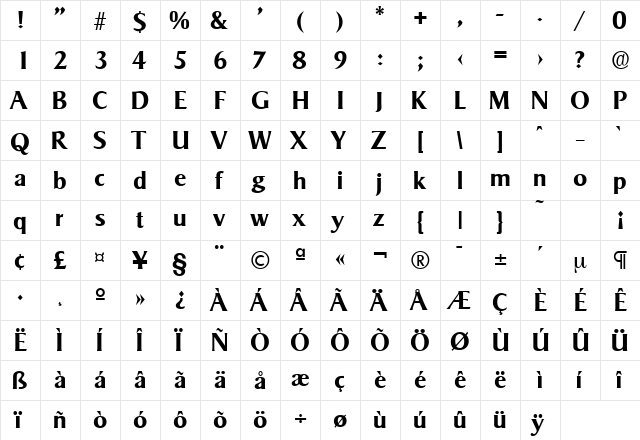
Sigvar-Serial Bold Font Preview
Sigvar-Serial Bold
Sigvar-Serial Bold Font Details
Design Context for Sigvar-Serial Typeface
Sigvar-Serial offers clean, dependable letterforms without strong stylistic allegiance, making it a practical choice for designers who need flexibility. Its bold stroke weight gives it real presence on the page.